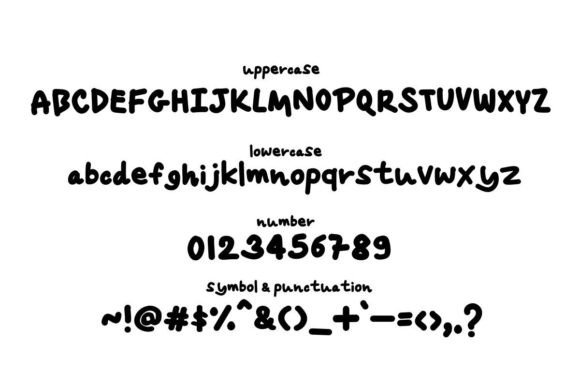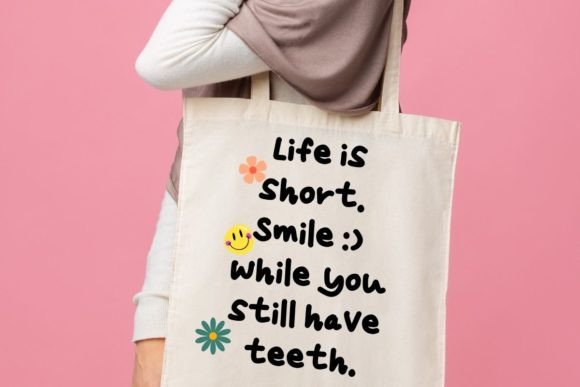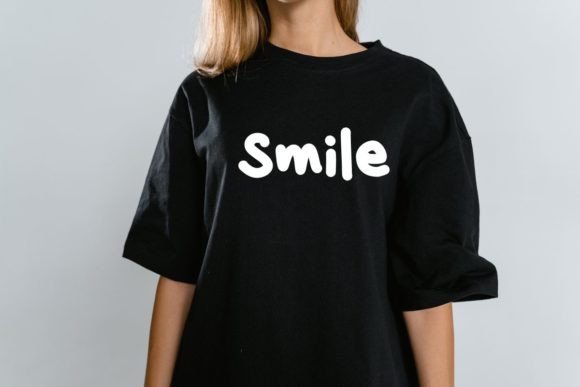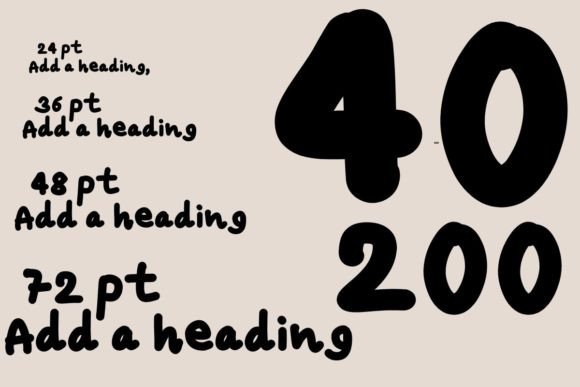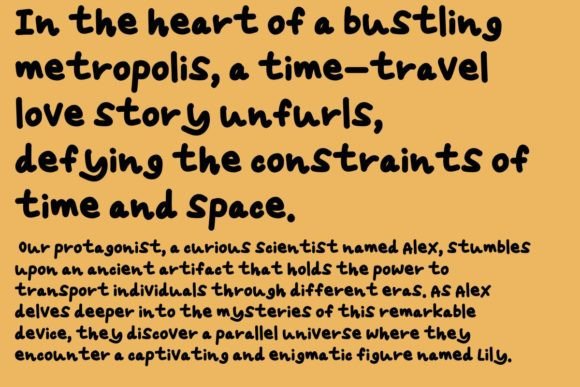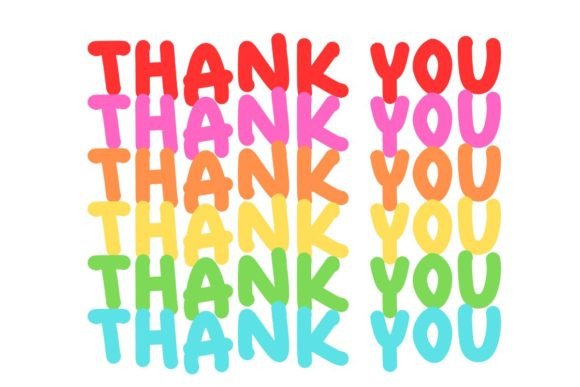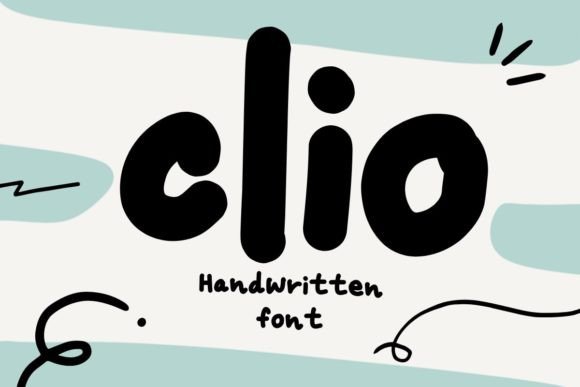
Introducing Clio Font: The Perfect Handwriting Font for Creative Projects
Are you a designer or crafter looking for a unique and versatile font to elevate your creative projects? Look no further than Clio Font, a beautiful handwriting font that is perfect for a wide range of applications. From letterheads and titles to stationery, branding materials, and more, Clio Font is the ideal choice for adding a touch of personality and style to your work.
What Makes Clio Font So Special?
Clio Font is a handwriting font that stands out from the crowd with its distinctive and appealing style. Its unique charm makes it perfect for a variety of creative projects, including:
• Letterheads and titles: Add a personal touch to your letters and documents with Clio Font’s elegant and sophisticated style.
• Stationery: Create beautiful stationery sets, including notecards, journals, and planners, with Clio Font’s charming and whimsical feel.
• Branding materials: Use Clio Font to create eye-catching logos, business cards, and brochures that showcase your brand’s personality.
• T-shirts and apparel: Design stylish and trendy t-shirts, hoodies, and other apparel with Clio Font’s fun and playful vibe.
• Posters and prints: Create stunning posters, prints, and artwork with Clio Font’s bold and expressive style.
• Photography and quotes: Add a touch of elegance to your photography and quotes with Clio Font’s beautiful and flowing script.
Why Designers and Crafters Love Clio Font
Designers and crafters love Clio Font for its versatility and flexibility. Here are just a few reasons why:
• Unique style: Clio Font’s distinctive style sets it apart from other handwriting fonts, making it perfect for designers and crafters who want to add a touch of personality to their work.
• Easy to read: Despite its unique style, Clio Font is easy to read and understand, making it perfect for body text and other applications where legibility is important.
• High-quality design: Clio Font is designed with high-quality craftsmanship in mind, ensuring that it looks great in any context.
• Flexible: Clio Font can be used for a wide range of projects, from digital applications to print materials.
Tips for Using Clio Font in Your Designs
Here are a few tips for getting the most out of Clio Font in your designs:
• Use it sparingly: Clio Font is a bold and expressive font, so use it sparingly to add emphasis and personality to your designs.
• Pair it with other fonts: Clio Font pairs well with a variety of other fonts, so experiment with different combinations to find the perfect look for your project.
• Experiment with colors: Clio Font looks great in a variety of colors, so don’t be afraid to experiment and find the perfect hue for your project.
• Pay attention to spacing: Make sure to pay attention to spacing and kerning when using Clio Font, as it can make a big difference in the overall look and feel of your design.
Clio Font is a beautiful and versatile handwriting font that is perfect for designers and crafters looking to add a touch of personality and style to their creative projects. With its unique style, ease of use, and high-quality design, Clio Font is the ideal choice for a wide range of applications. Whether you’re working on a letterhead, t-shirt, poster, or any other project, Clio Font is sure to impress. So why wait? Try Clio Font today and see the difference it can make in your designs!